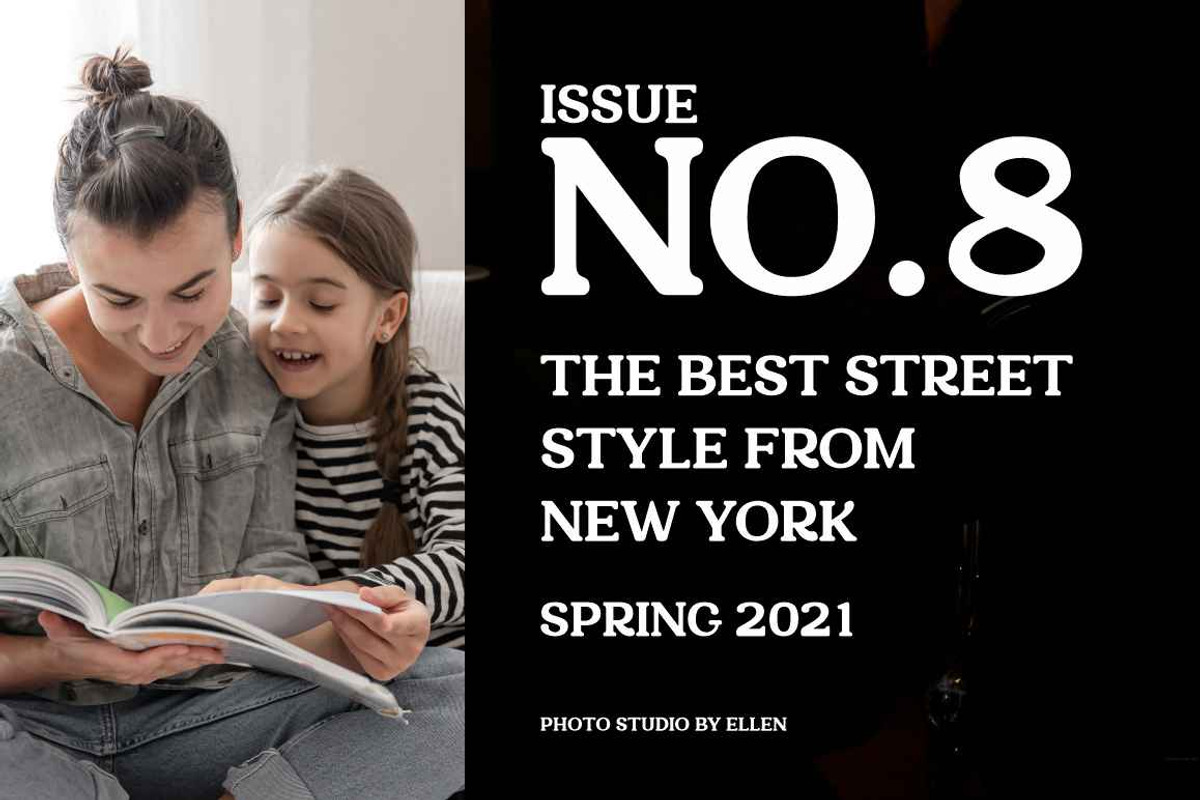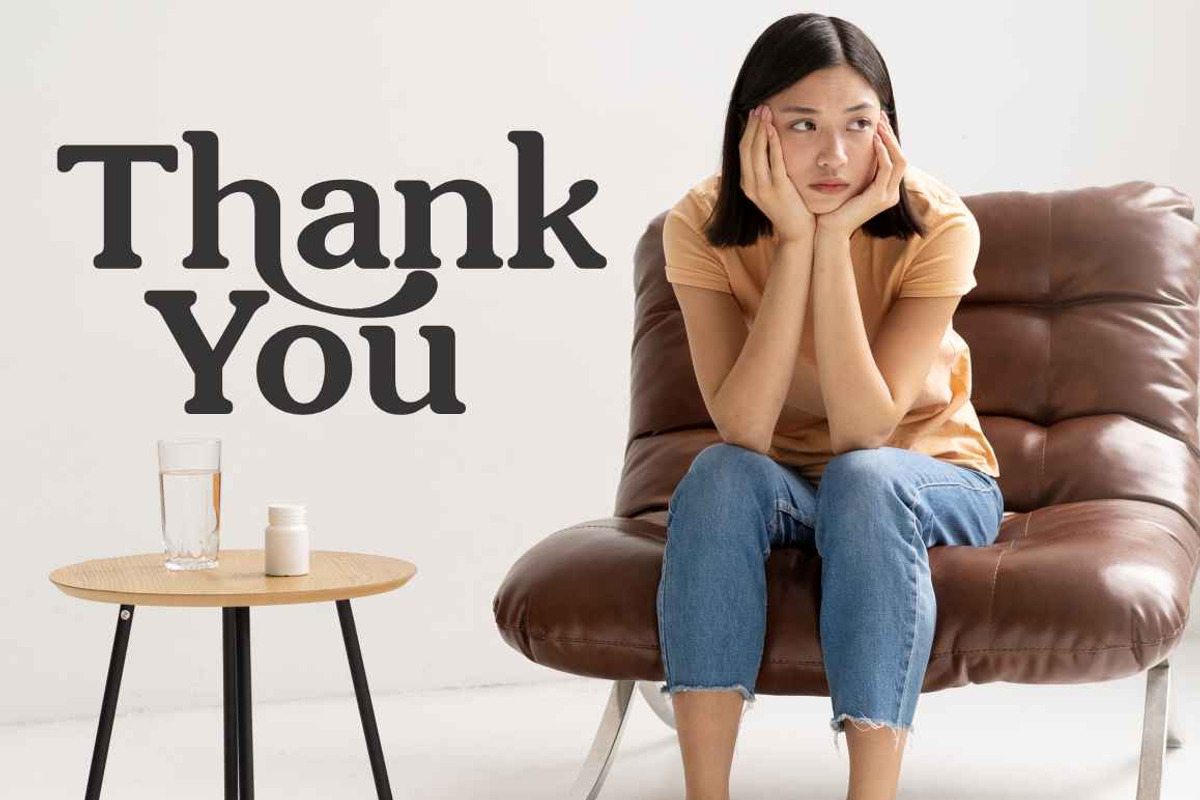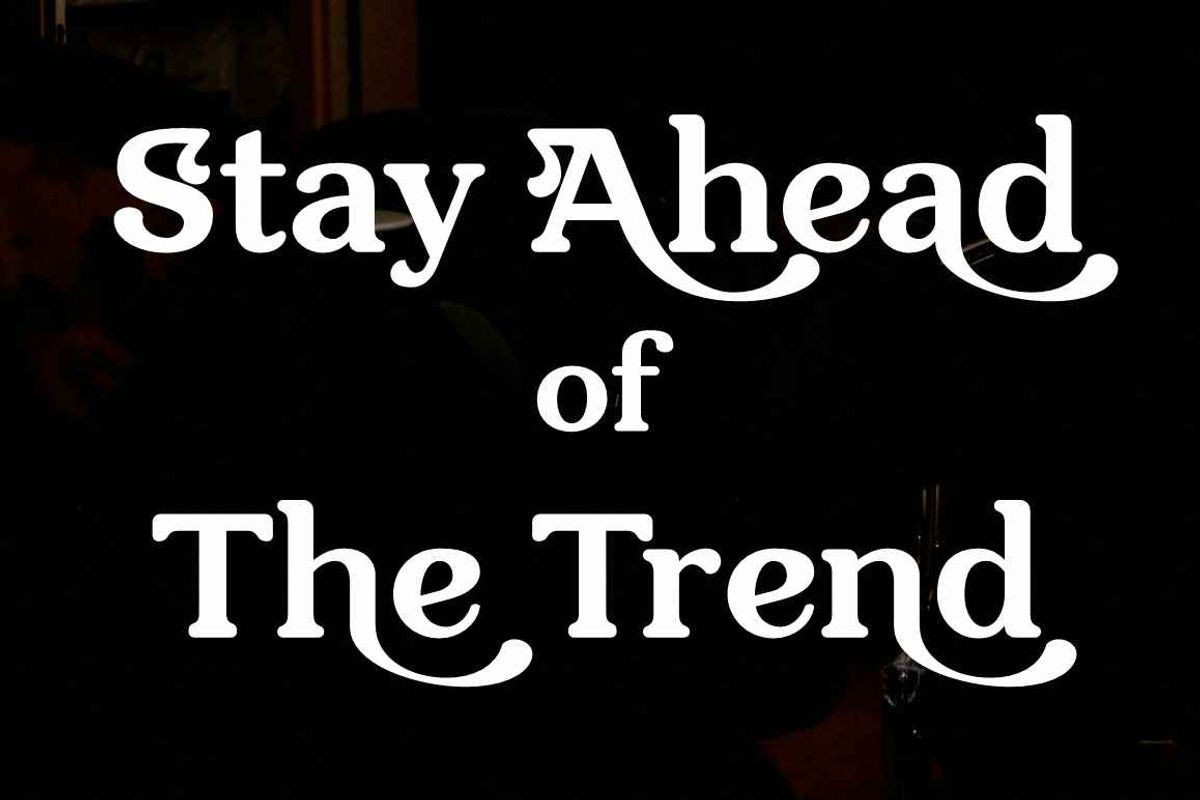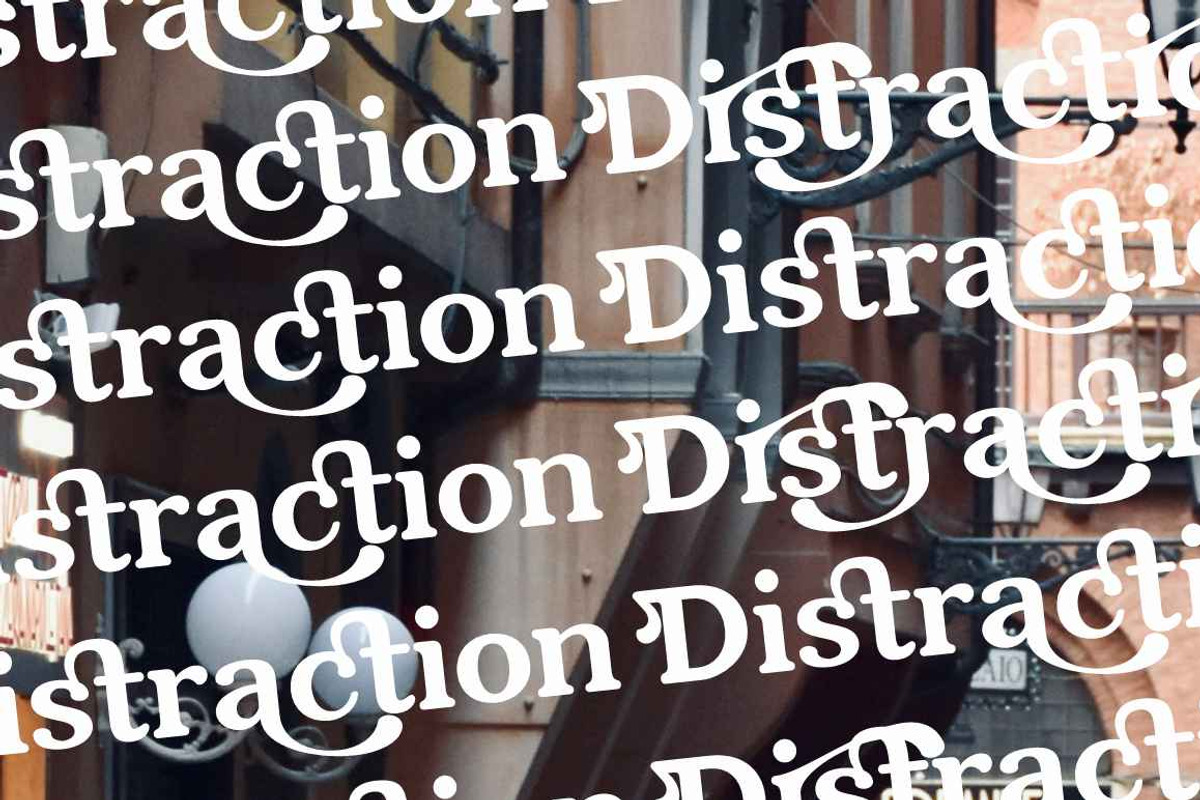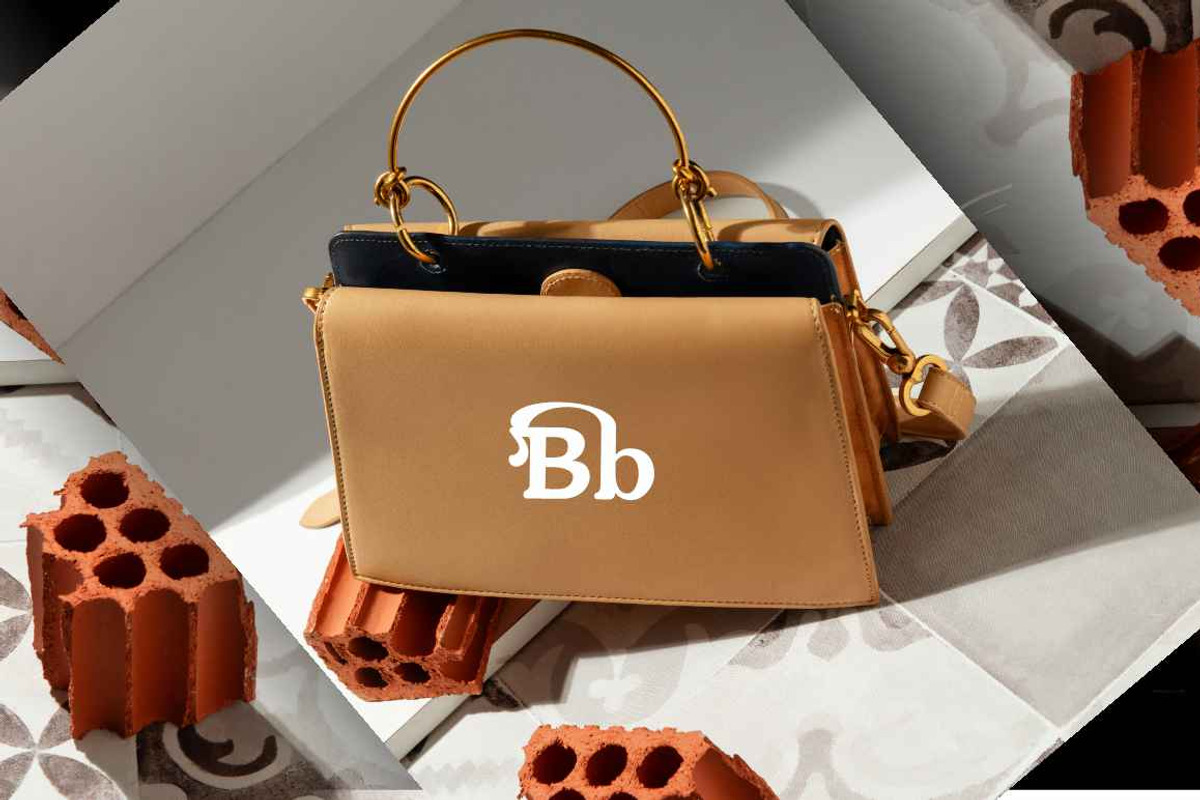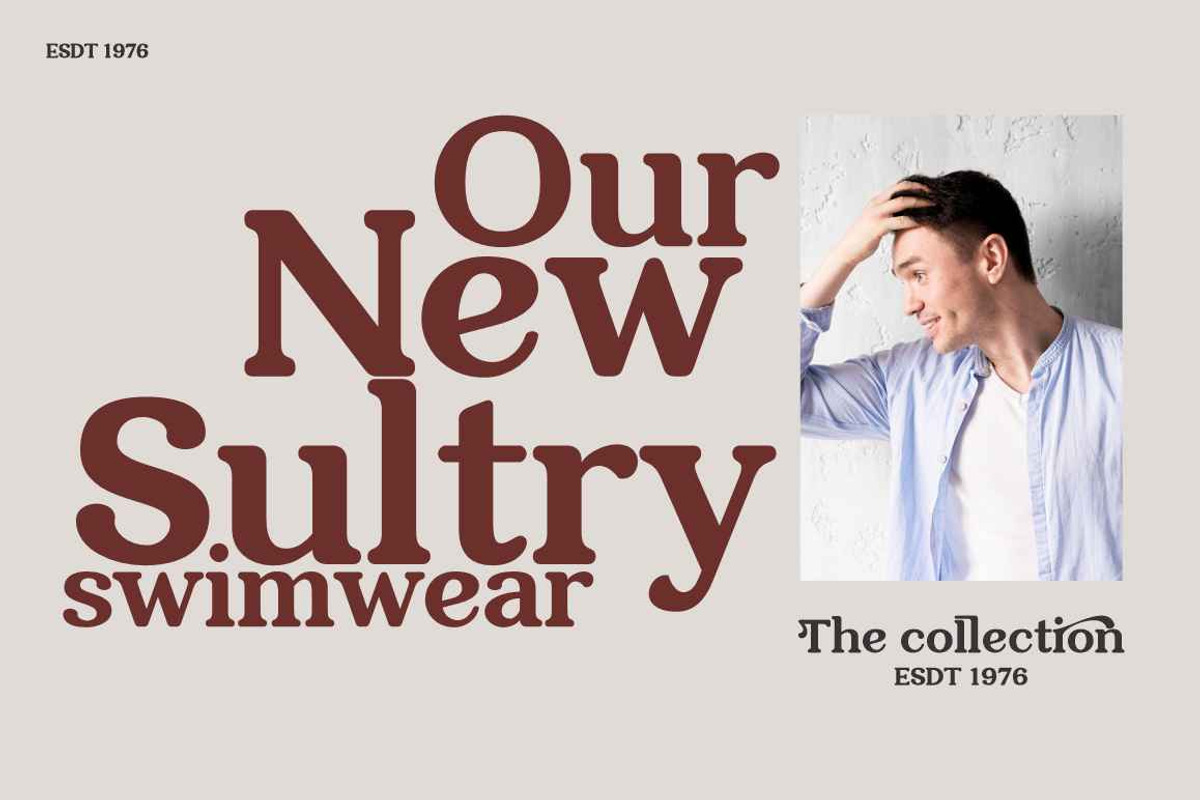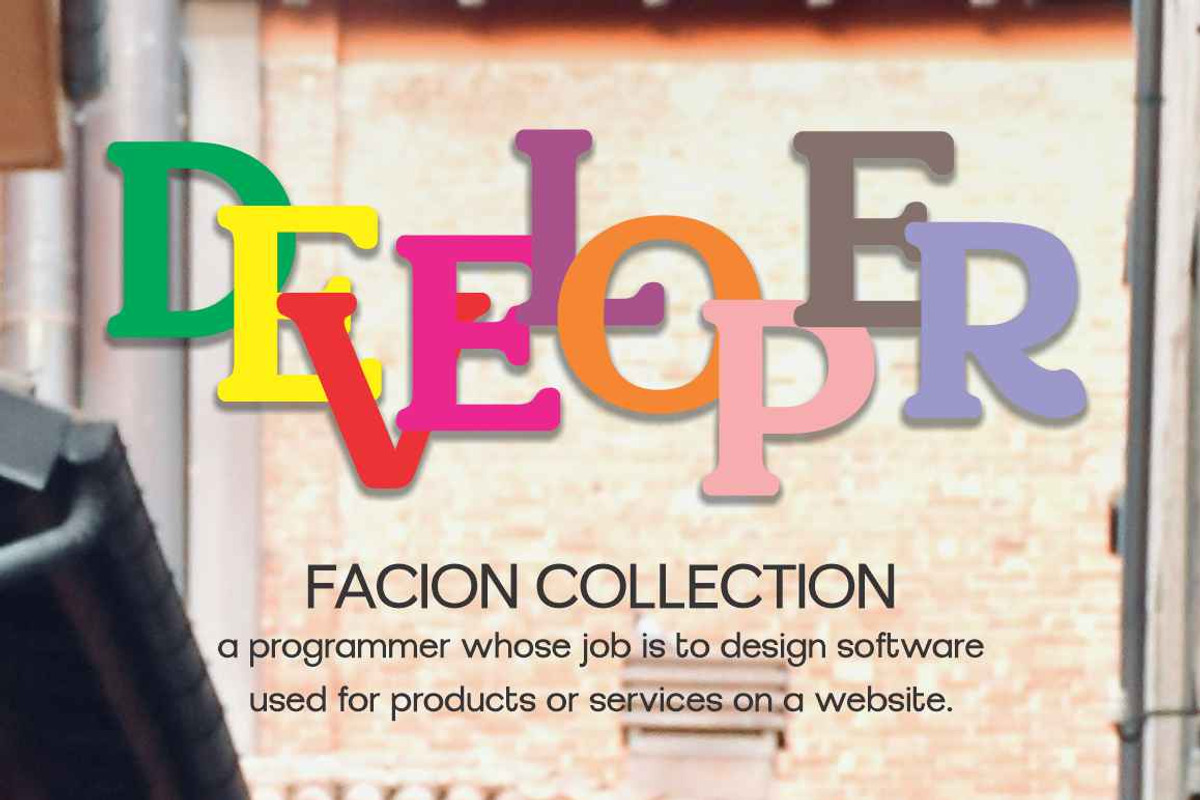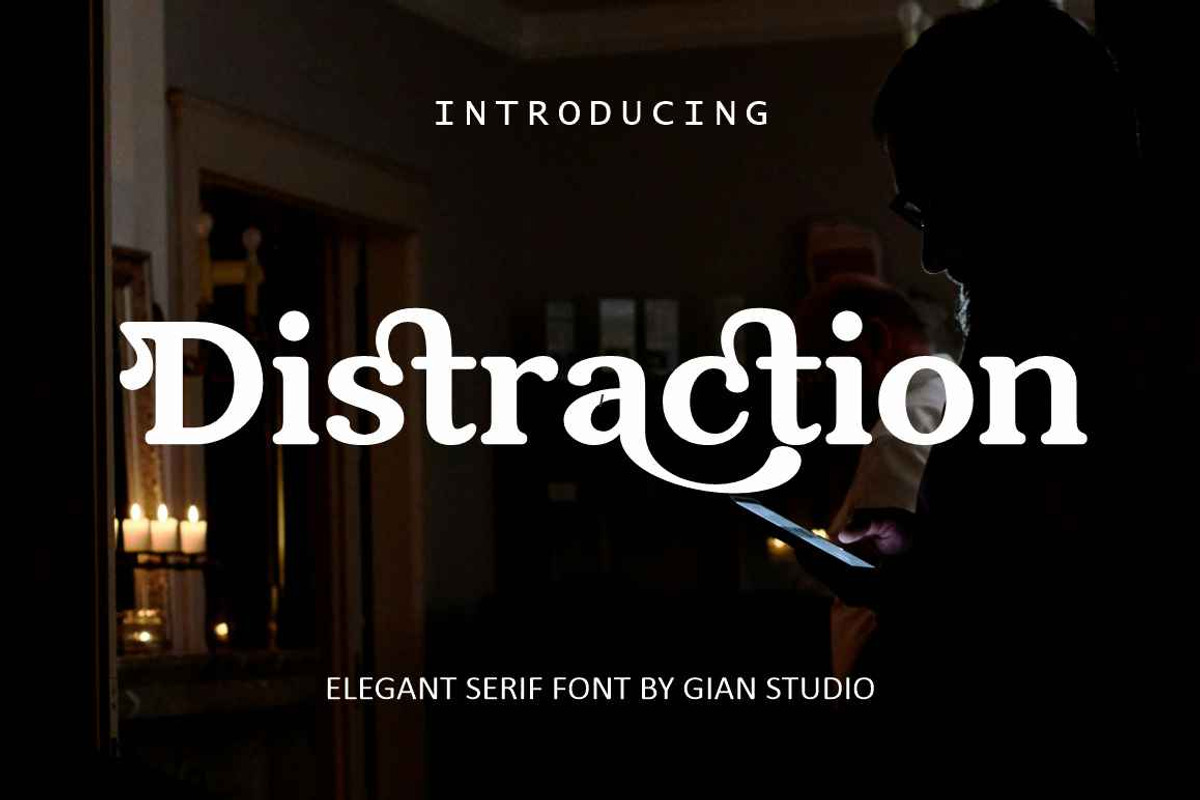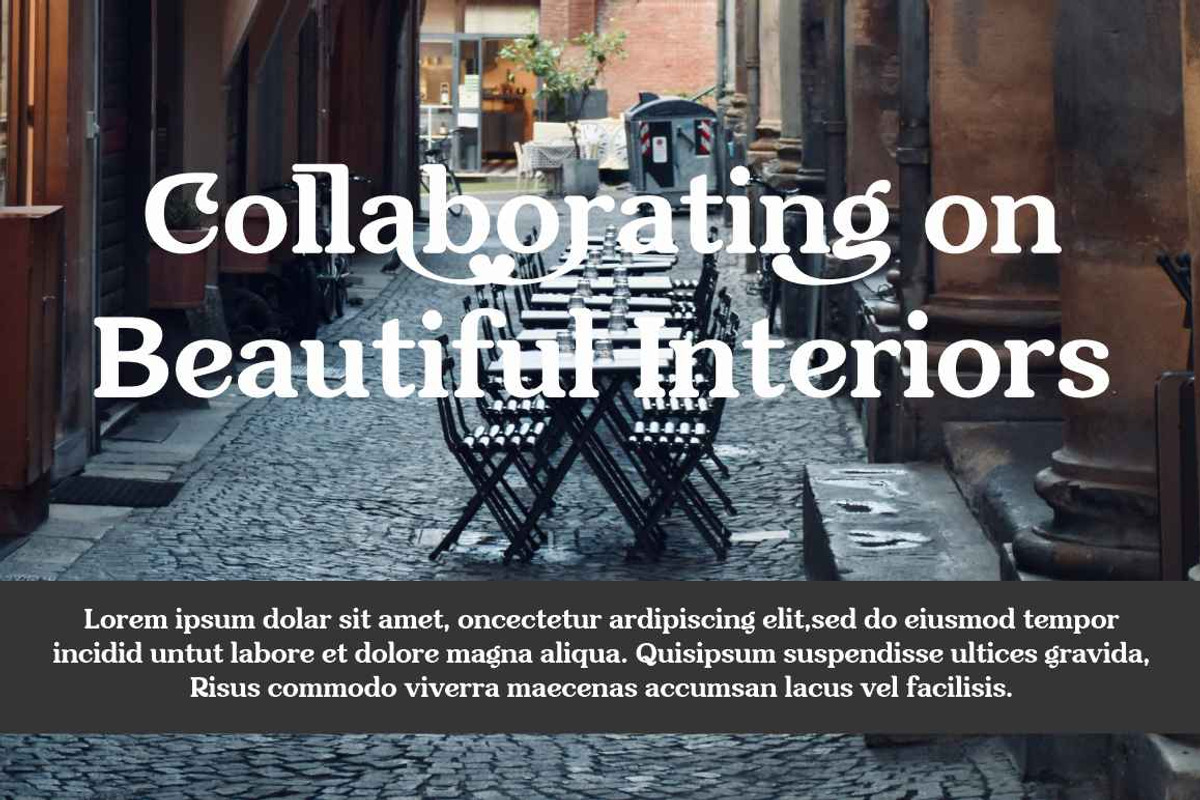
Distraction
Distraction is a soft and very elegant font for branding and logo designs. A soft serif typeface combined with a classy and modern style. This type of font is perfect for your various needs such as branding projects, logos, wedding designs, social media posts, advertisements, product packaging, product designs, labels, photography, watermarks, invitations, stationery and any project, created in a legibility high level.